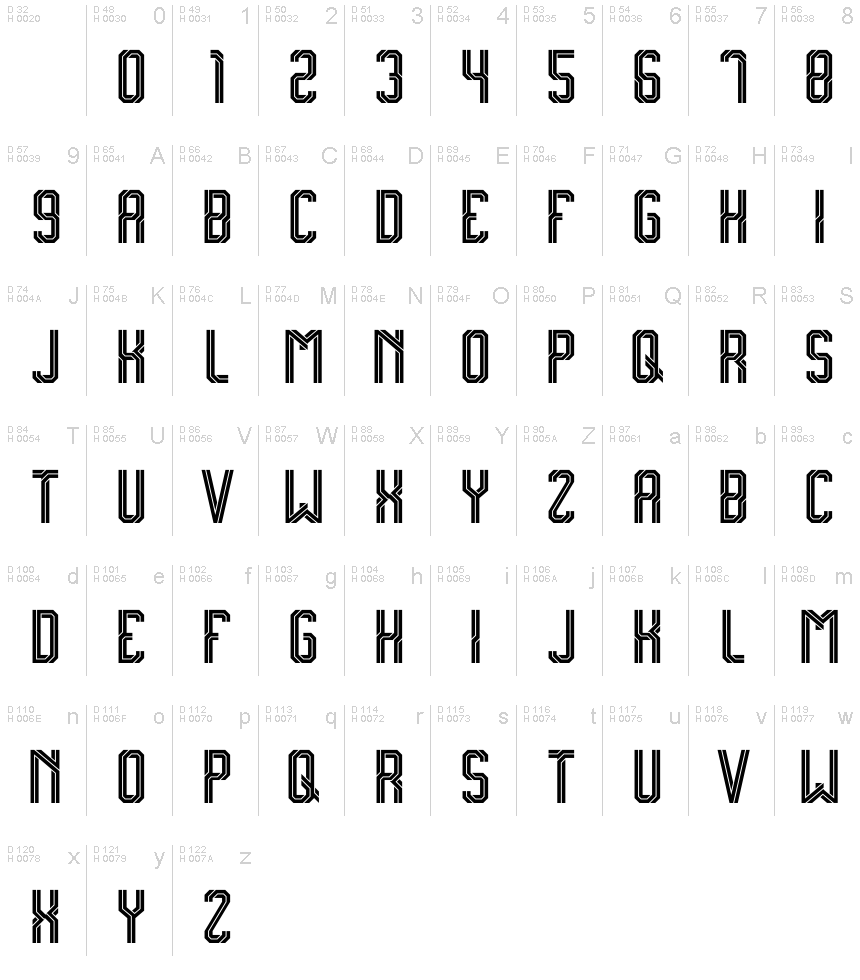
Haku
The Haku font, designed by Tegar Budi Prasetya, exudes a striking techno-inspired aesthetic. Its condensed width and bold, linear forms create a sense of technological precision and futuristic allure. The bold, geometric letterforms possess a captivating balance between sharp angles and subtle curves, evoking a sleek, modern vibe that commands attention.
This font's versatility shines through its ability to seamlessly integrate into a range of design contexts, from digital interfaces and packaging to event branding and advertising. Its condensed nature makes it an excellent choice for space-constrained applications, while its bold presence ensures it stands out in headlines, logos, and other prominent design elements.